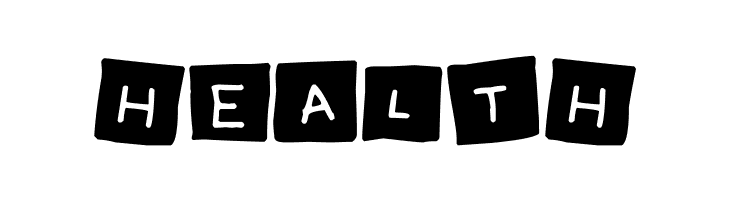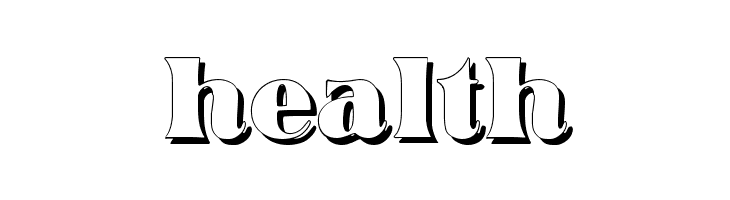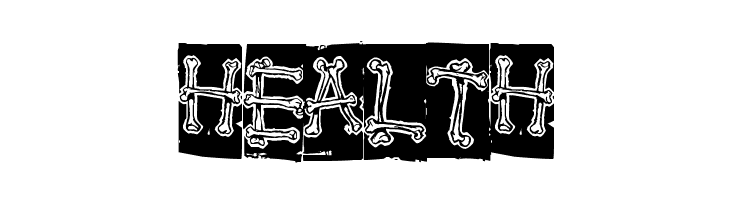
An elegant, extra light serif font with italic styling, perfect for sophisticated designs.
( Fonts by Darrell Flood )
A playful, hand-drawn font with characters on individual tiles, perfect for creative projects.
( Fonts by Inopatype )
A playful font with characters inside balloon shapes, perfect for festive designs.
A bold, star-patterned decorative font ideal for eye-catching designs.
( Fonts by DM Letter31 )
A whimsical font with unicorn horn and star accents, ideal for magical themes.
A bold serif font with a 3D shadow effect, perfect for impactful headlines.
( Fonts by Sophie Fraser )
A bold, bone-themed font ideal for spooky or Halloween projects.
A whimsical font with letters as cat and dog faces, perfect for playful designs.